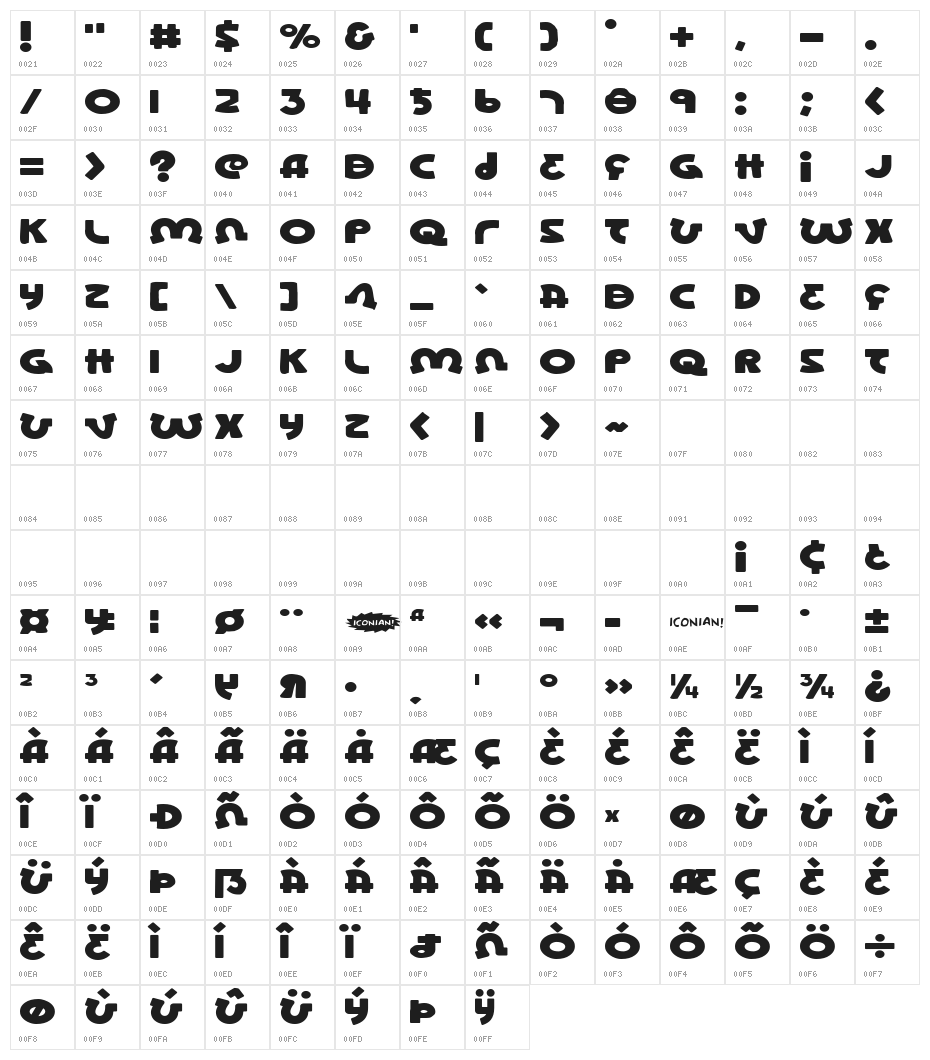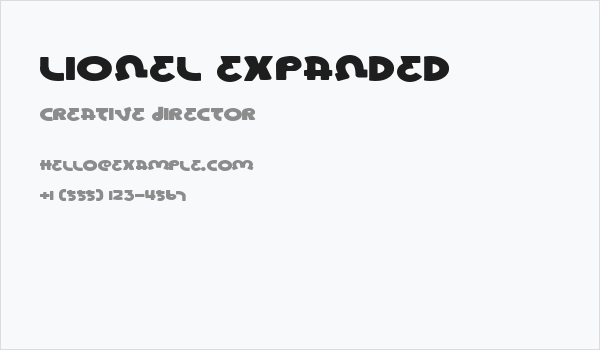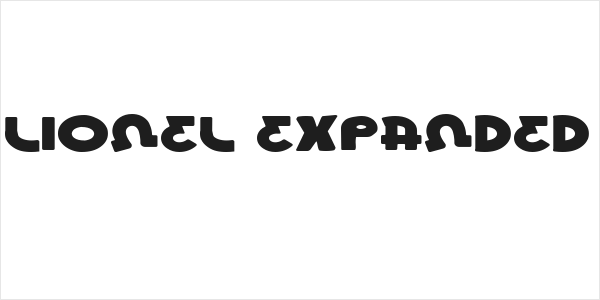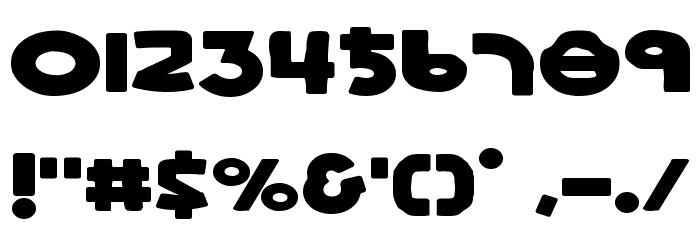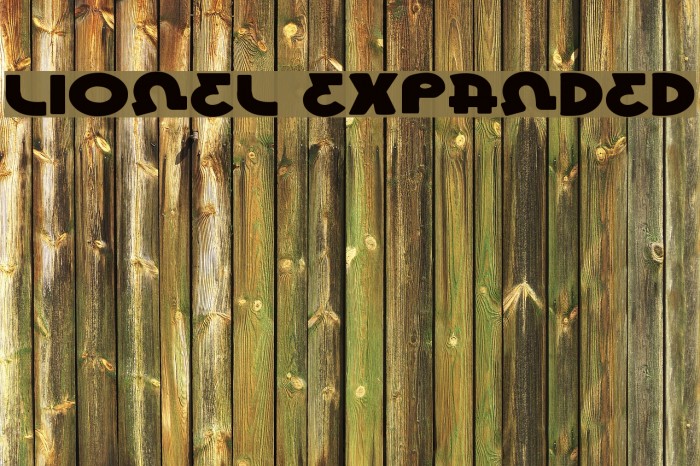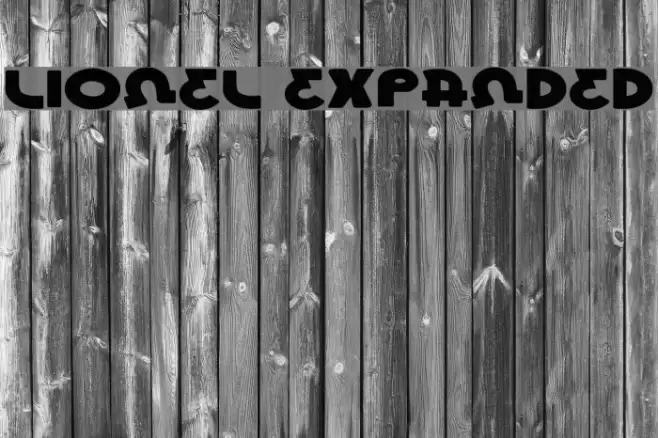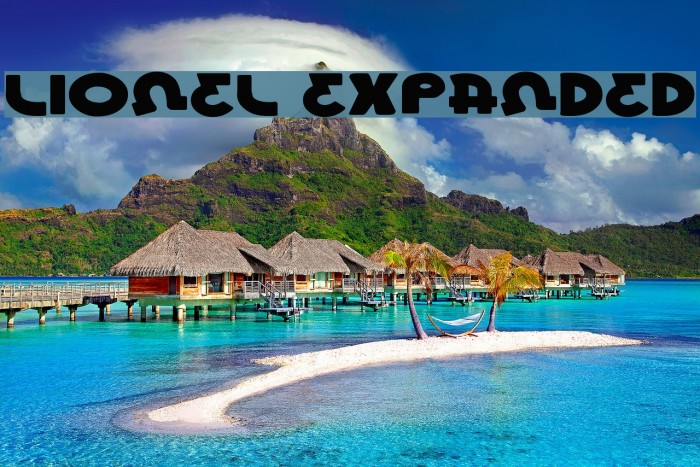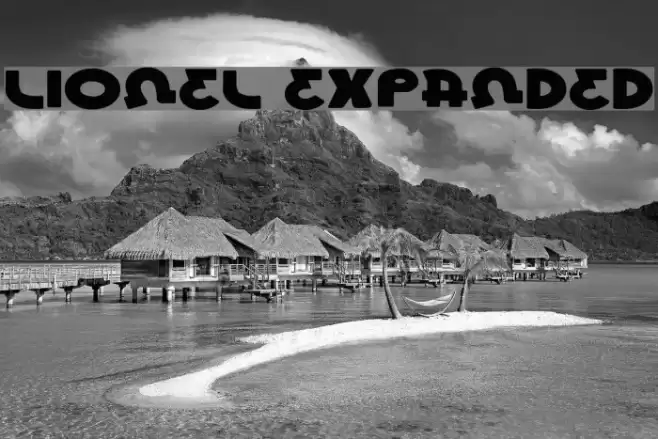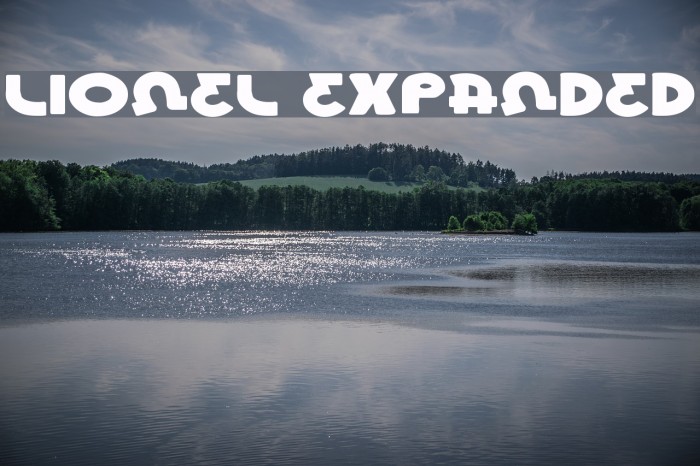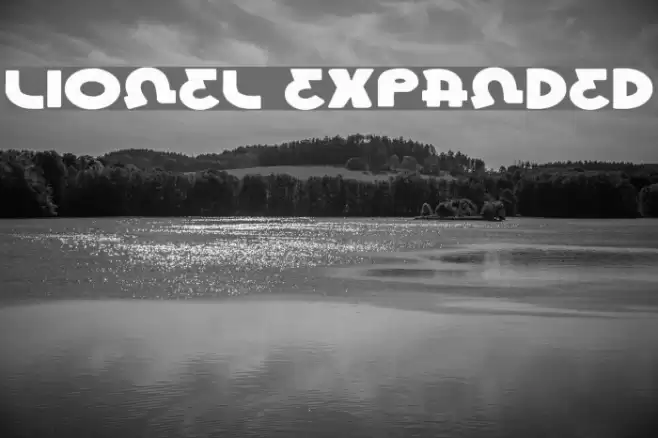
Lionel Expanded Font
Lionel Expanded Description
This font features a bold and playful design with a unique, expanded style. The characters are rounded and have a distinct, chunky appearance, making them stand out. The uppercase and lowercase letters maintain a consistent width, creating a cohesive look. The numbers and special characters follow the same design principles, ensuring uniformity across the font. The overall aesthetic is modern and eye-catching, suitable for projects that require a strong visual impact.
| Proposed Projects | Ideal for branding, posters, headlines, and any design requiring a bold statement. |